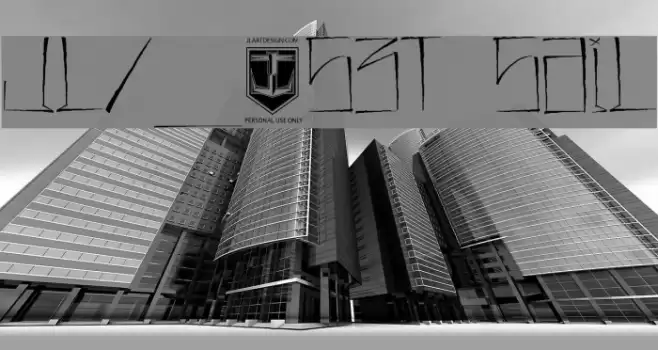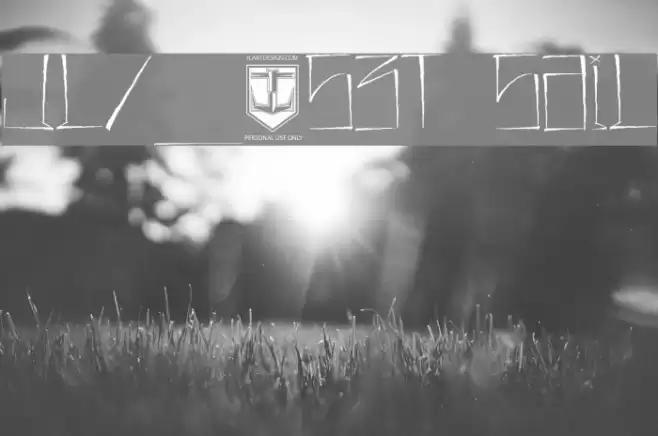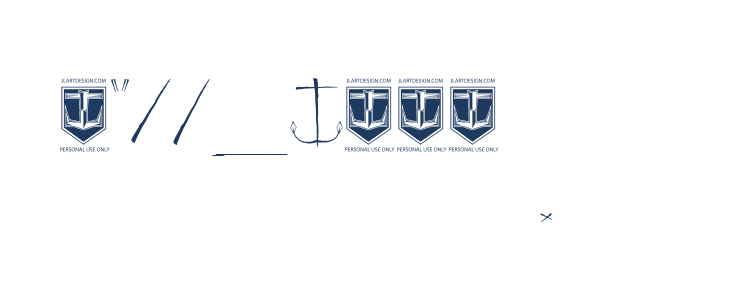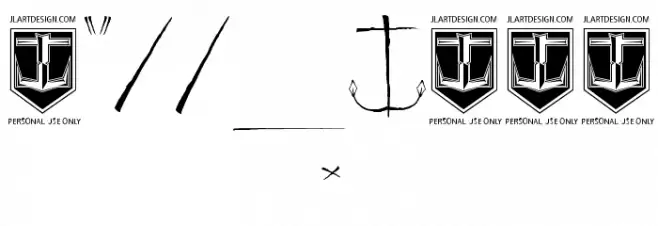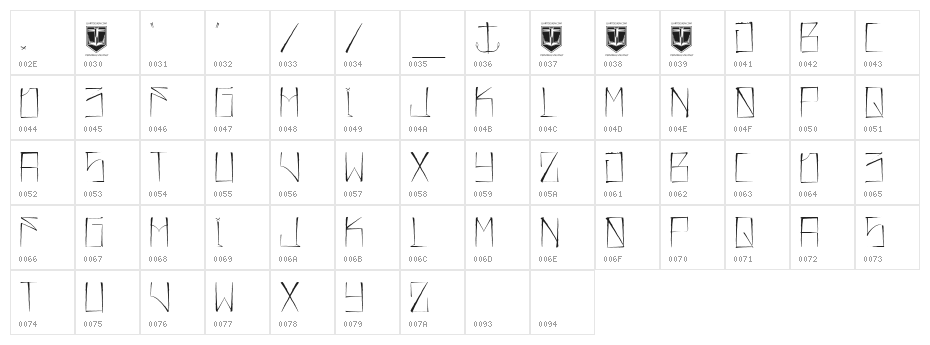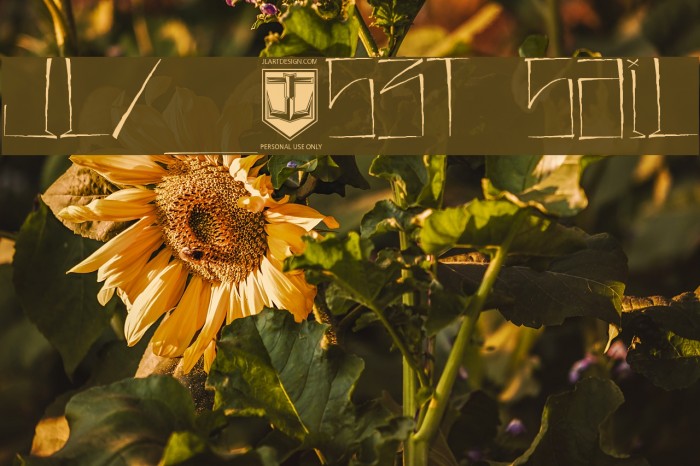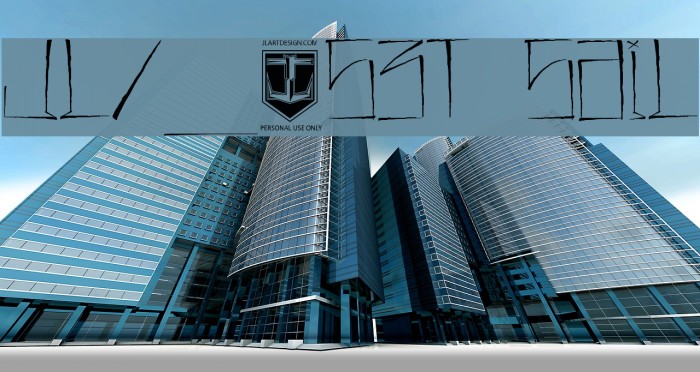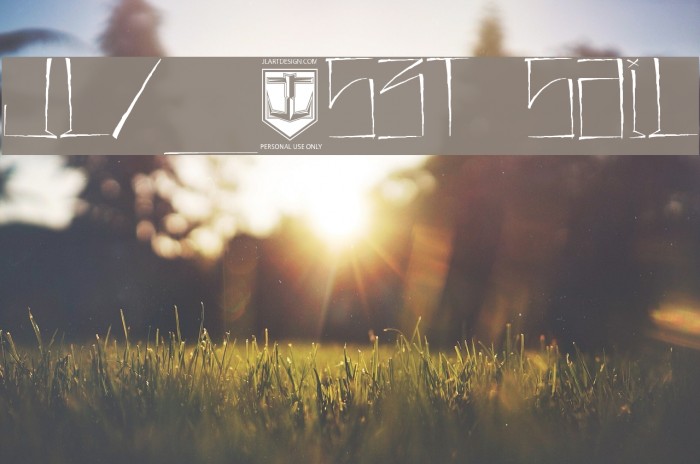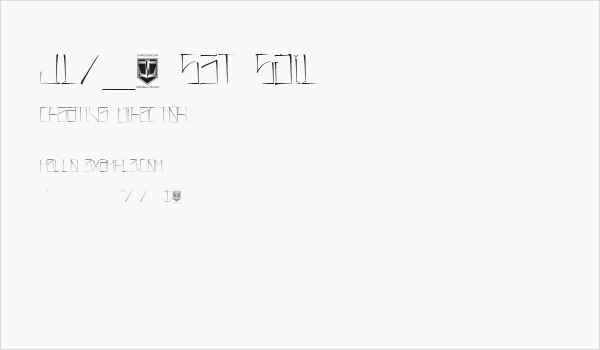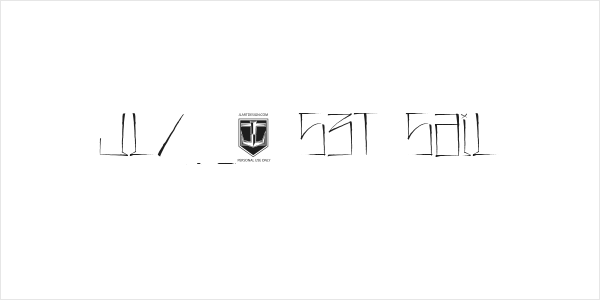
JL357_SET SAIL Font
JL357_SET SAIL Description
This font features a unique, hand-drawn style with a nautical theme. The characters are composed of thin, uneven strokes that give it a rustic and adventurous appearance. The uppercase letters are angular and sharp, resembling maritime symbols or ancient runes. The font includes special characters like an anchor and other nautical symbols, enhancing its thematic appeal. The overall design is reminiscent of old maps and sailor tattoos, making it ideal for projects that require a vintage or maritime aesthetic.
A nautical-themed, hand-drawn font with angular, rustic characters from Uncategorized fonts.
- Proposed Projects: Ideal for maritime-themed designs, vintage posters, adventure branding, and creative projects requiring a rustic, hand-drawn look.
- Overall Style: Vintage, Decorative
- Use Case: Logos, Posters, Themed Events